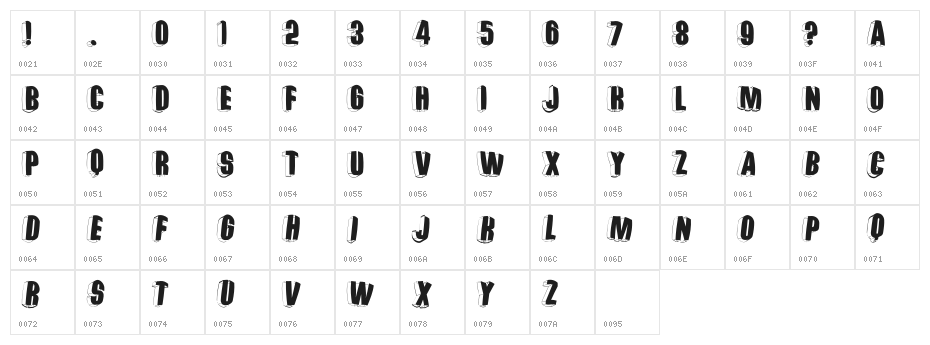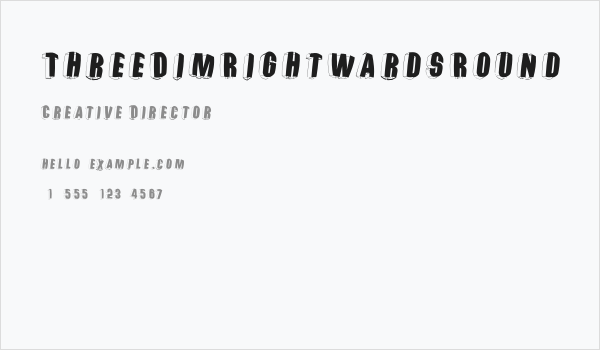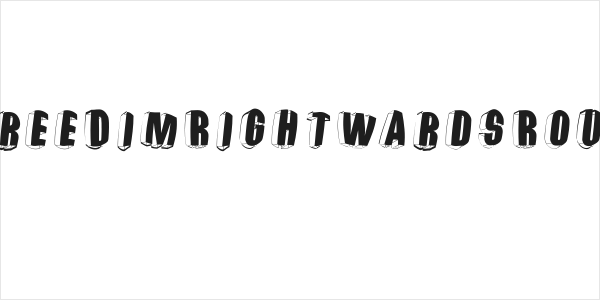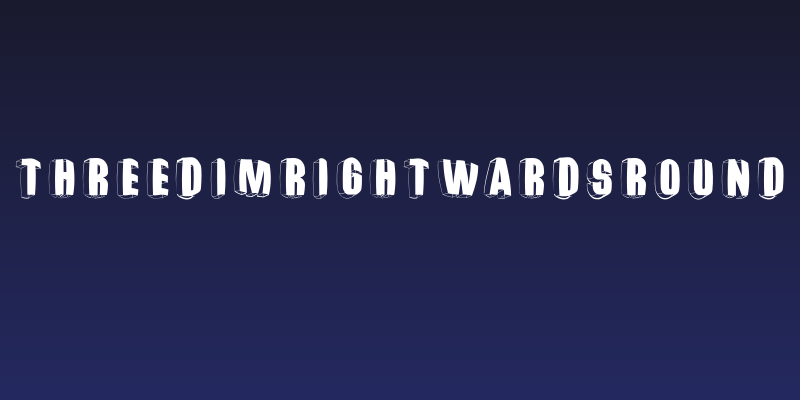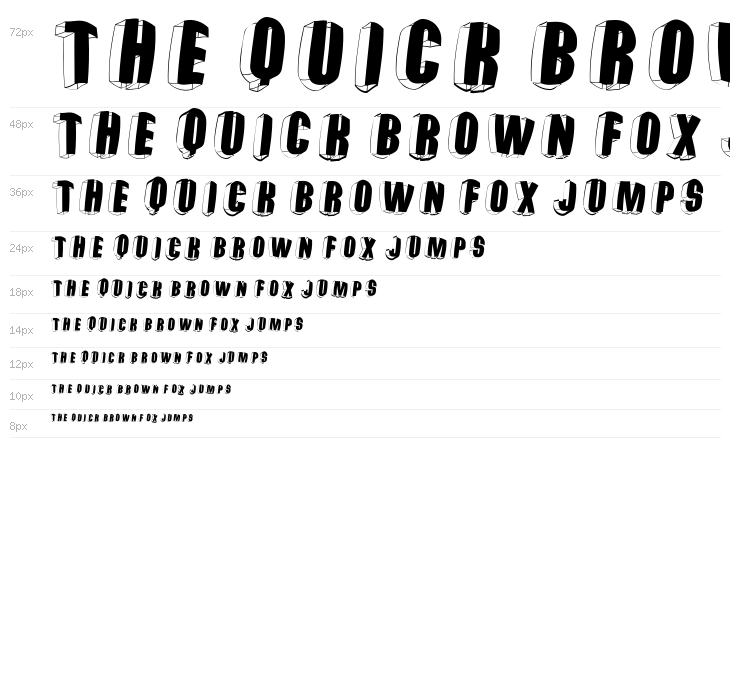
ThreeDimRightwardsRound Font
ThreeDimRightwardsRound Description
This font features a bold, three-dimensional design with a rightward slant, creating a dynamic and eye-catching effect. The characters are blocky and robust, with a shadow that gives them depth and a sense of movement. The uppercase letters are prominent, while the numbers and punctuation maintain the same bold style. This font is ideal for making a strong visual impact, suitable for headings or titles that need to stand out. The 3D effect is consistent across all characters, providing a cohesive look that is both modern and playful.
| Proposed Projects | Ideal for posters, advertisements, video game graphics, and any project requiring a bold, dynamic look. |